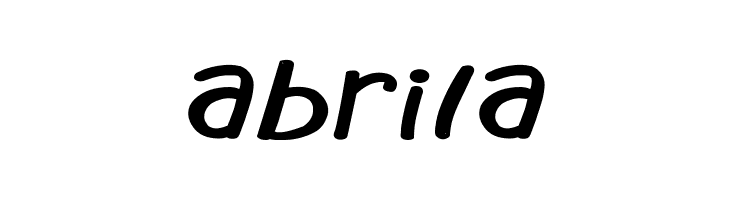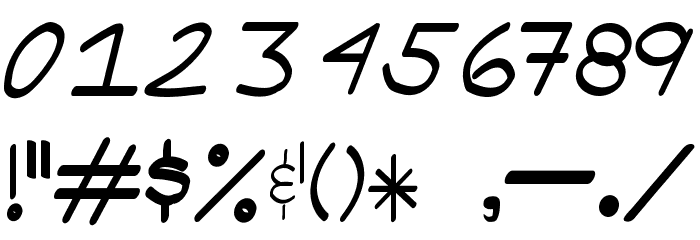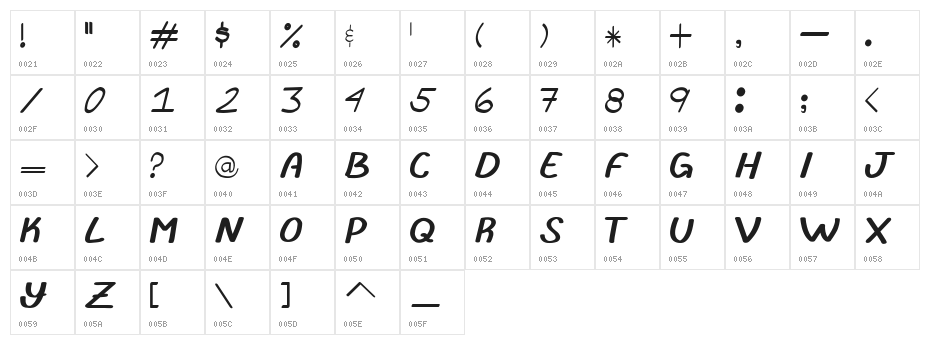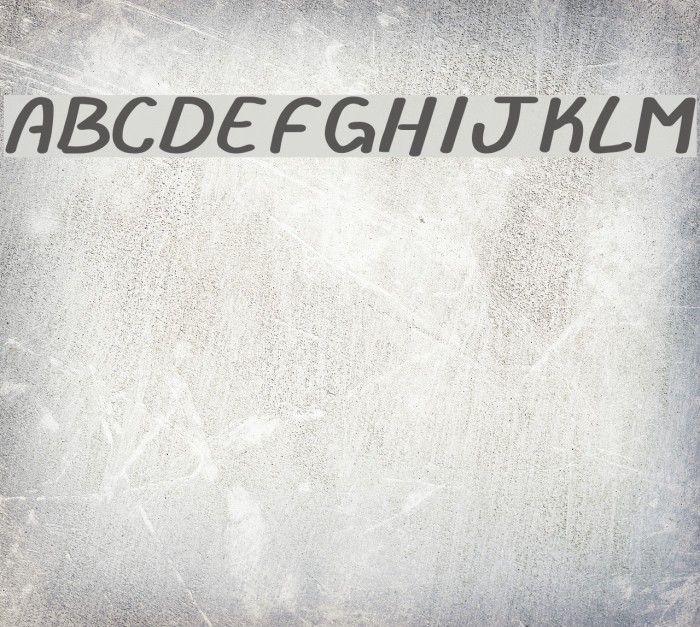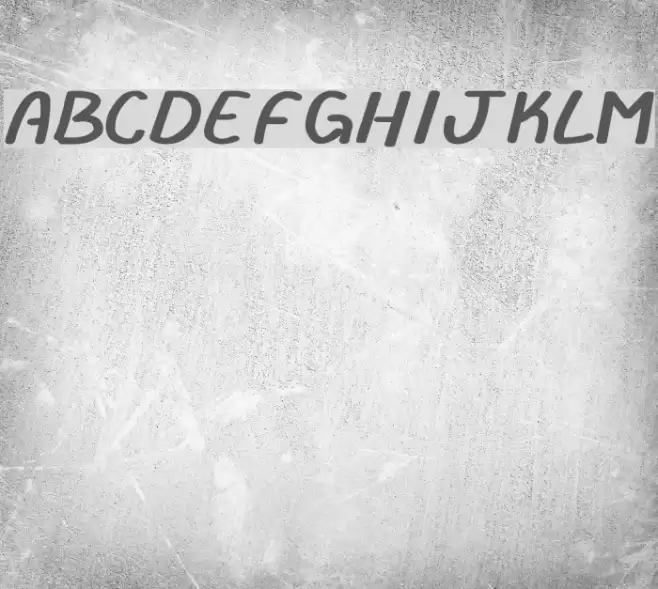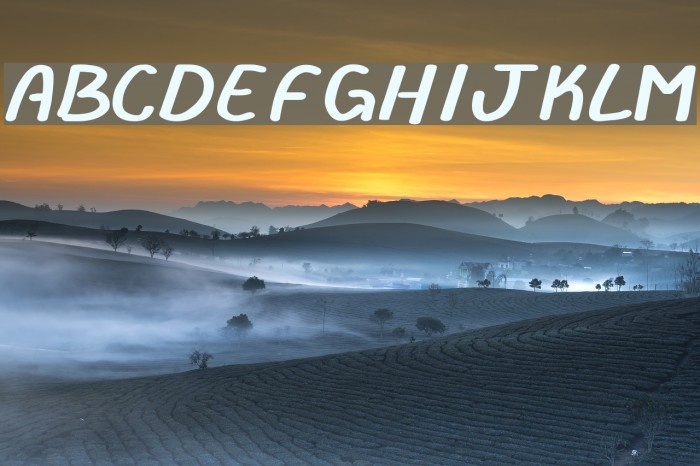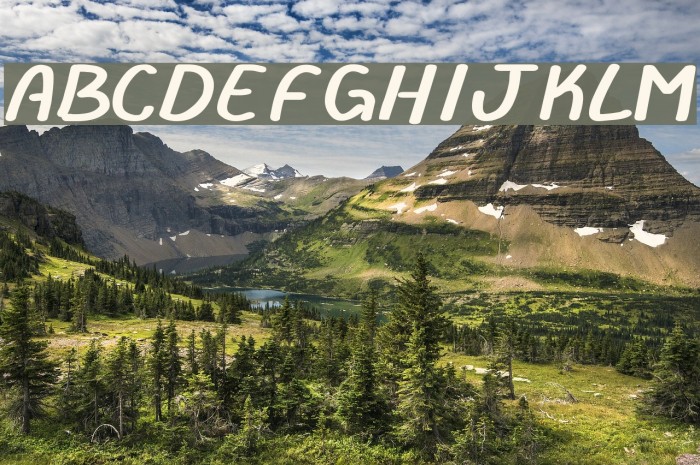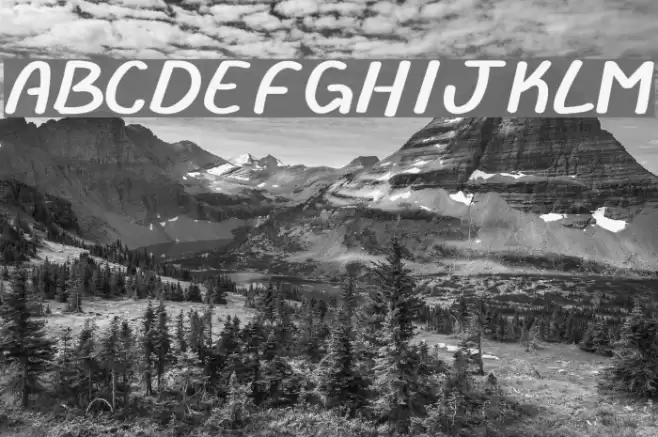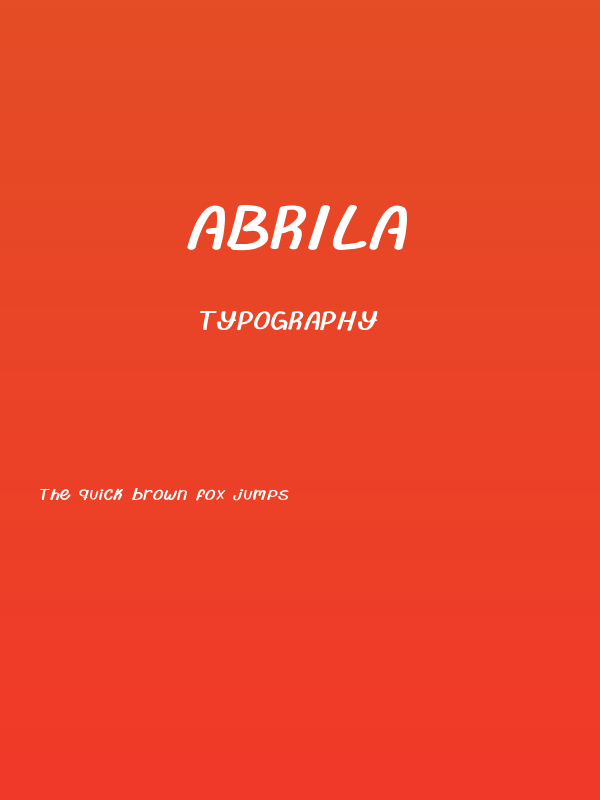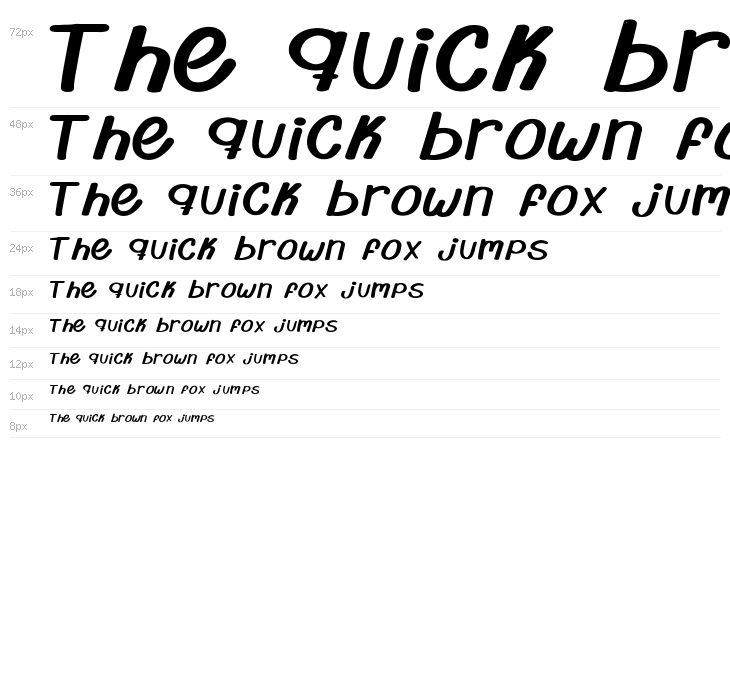
abrila Font
abrila Description
This font features a playful and casual script style with rounded edges and a smooth flow. The characters are slightly slanted, giving a dynamic and energetic feel. Uppercase letters are bold and prominent, while lowercase letters maintain a consistent rhythm and balance. The numerals are clear and easily readable, complementing the overall style. Special characters are designed with the same playful touch, making them suitable for various creative applications.
| Proposed Projects | Ideal for greeting cards, children's books, playful branding, and social media graphics. |